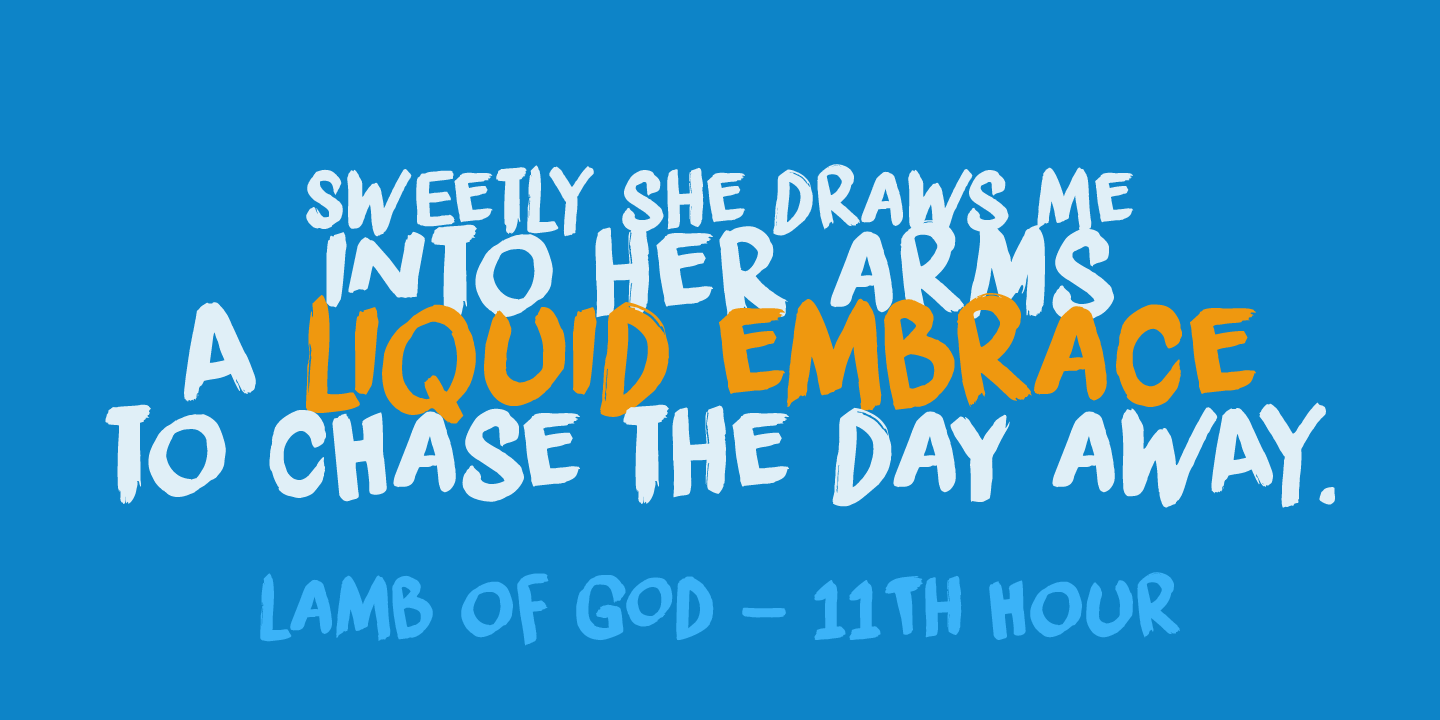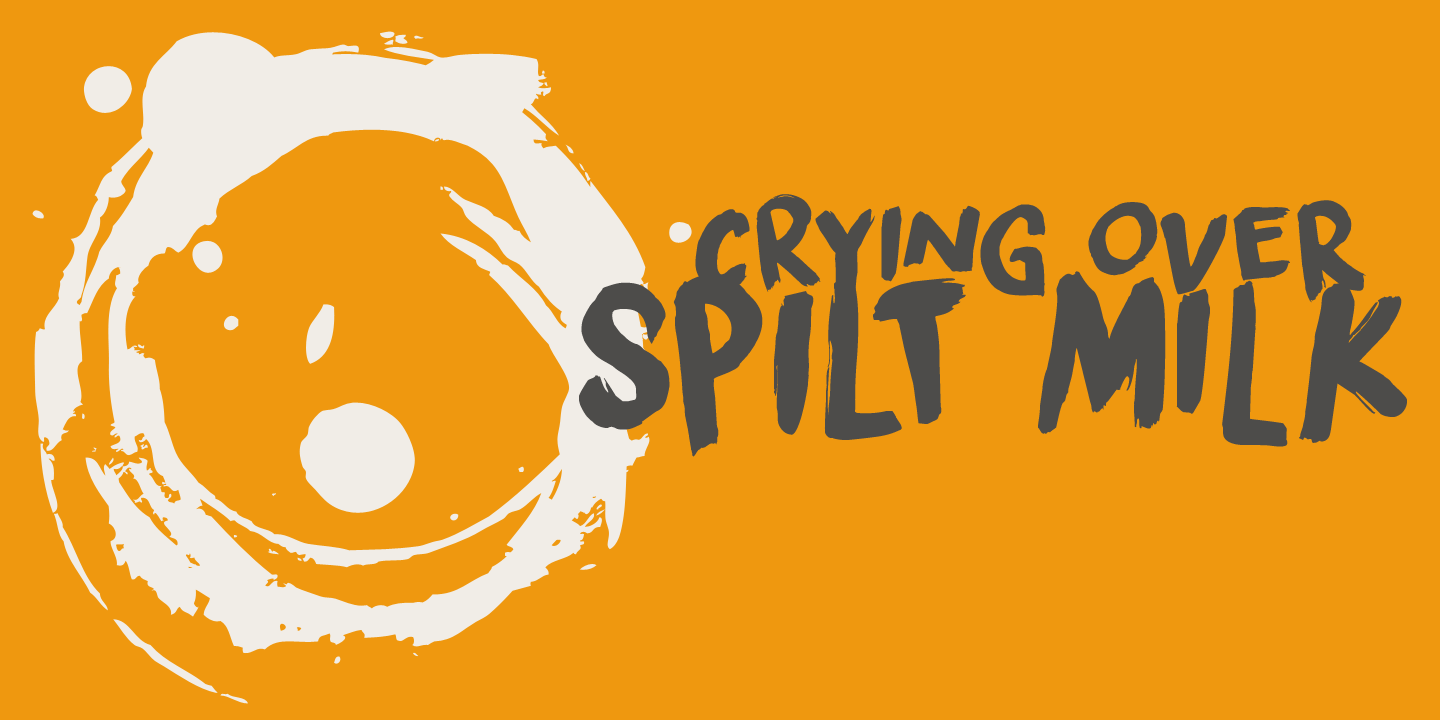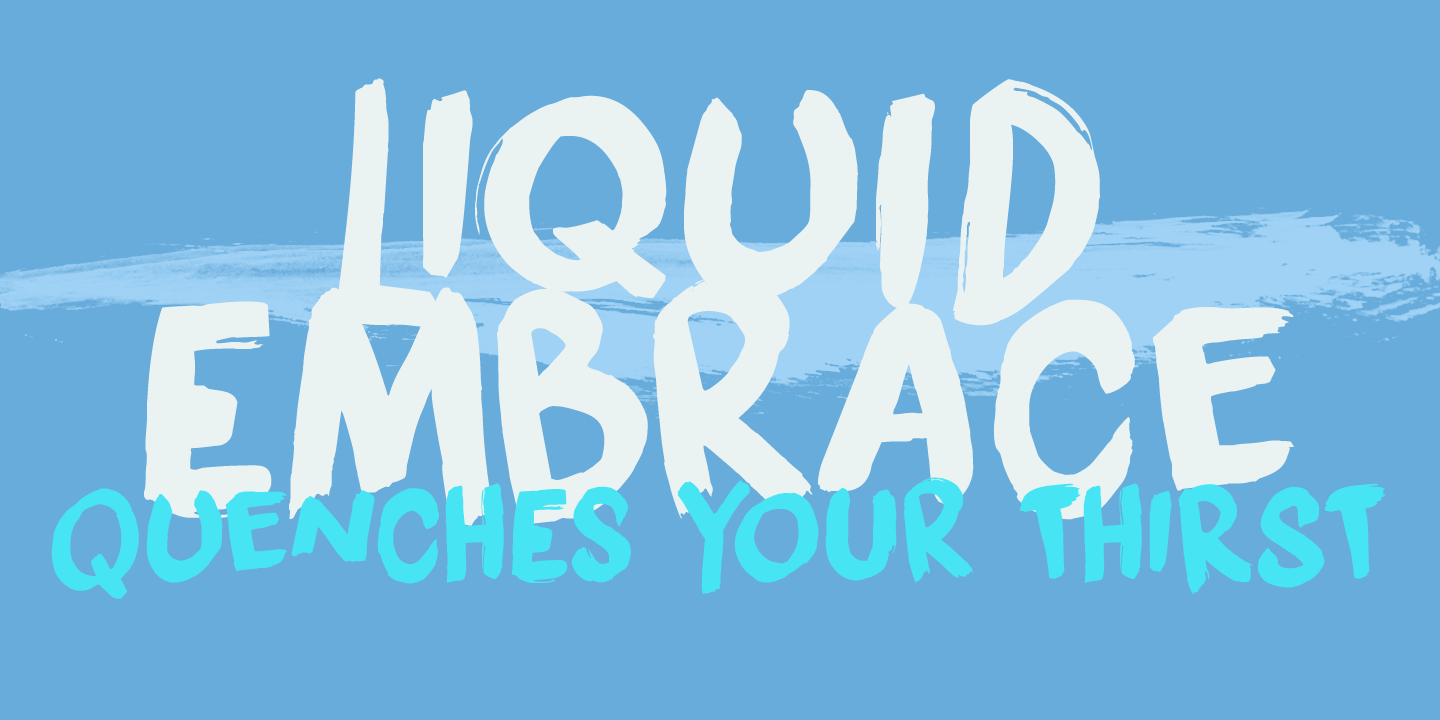
Liquid Embrace
Font Family by Hanoded
Liquid Embrace is a rough ?n? ready brush font. It was created using a Chinese calligraphy brush and Royal Blue Ink (I had run out of black...). Liquid Embrace is fat and in your face, making your message stand out all the more. Comes with an ocean of diacritics.